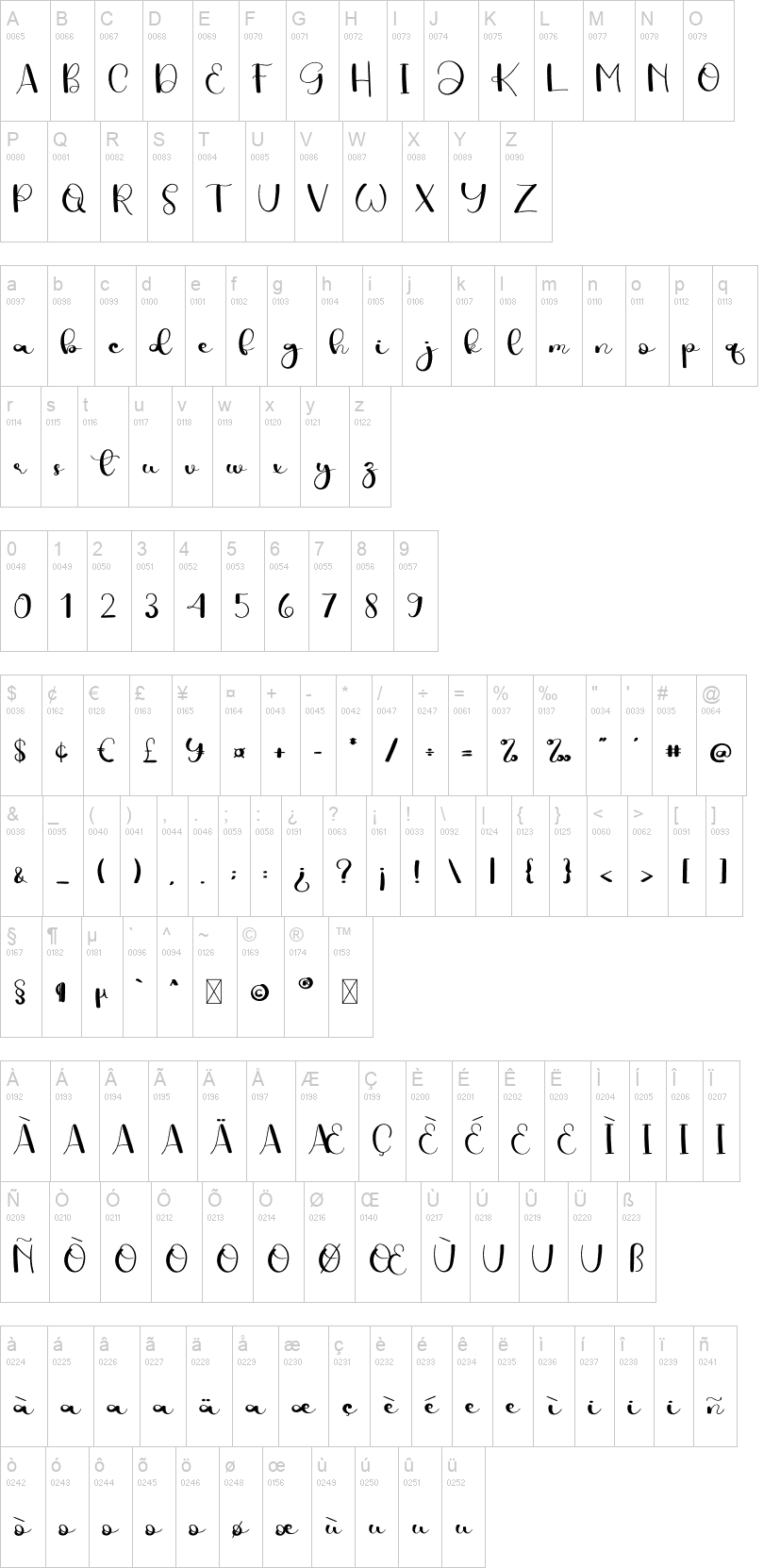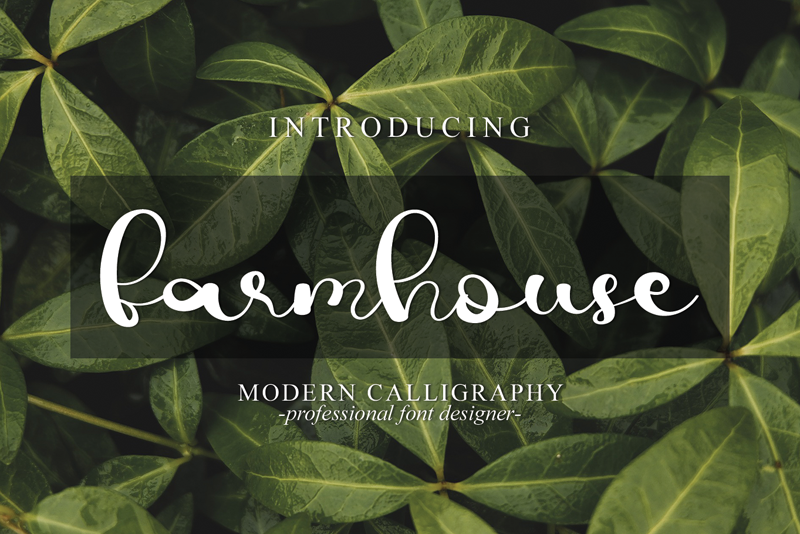
Note of the authorFarmhouse is a sweet, round lettered and delicate script font. Not too thin and not too thick, balanced and varied, this font was designed to enhance the beauty of your projects.